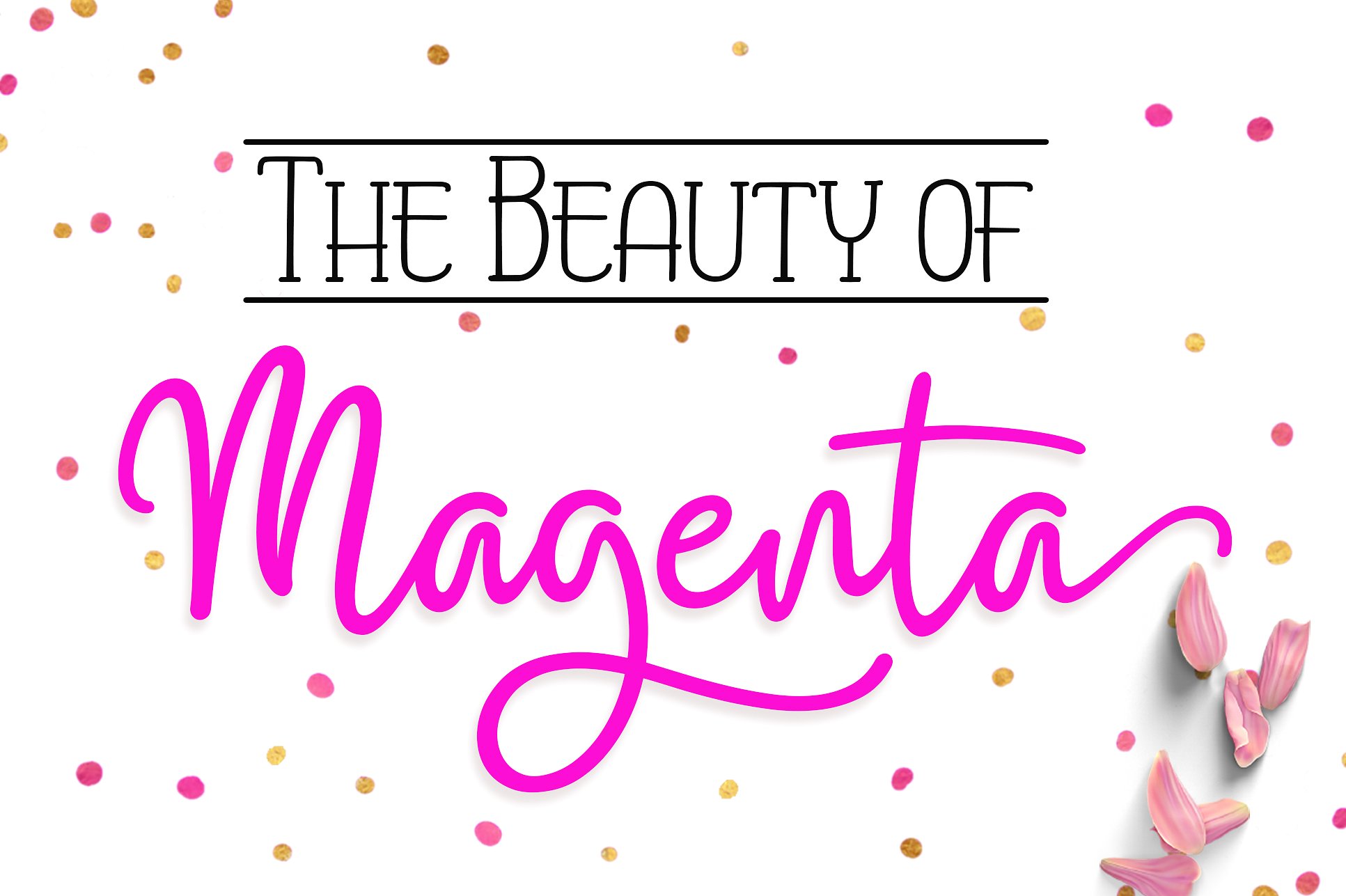
Magenta Script Font
Magenta is a interconnected font with beautiful welded letters. The font contains beautiful smooth and elegant letters and is great for creating cards such as wedding invitations and birthday cards but also can be used to create beautiful signs and decorate various items.
| Classification: | Calligraphy Fonts, Handwritten Fonts, Script Fonts |